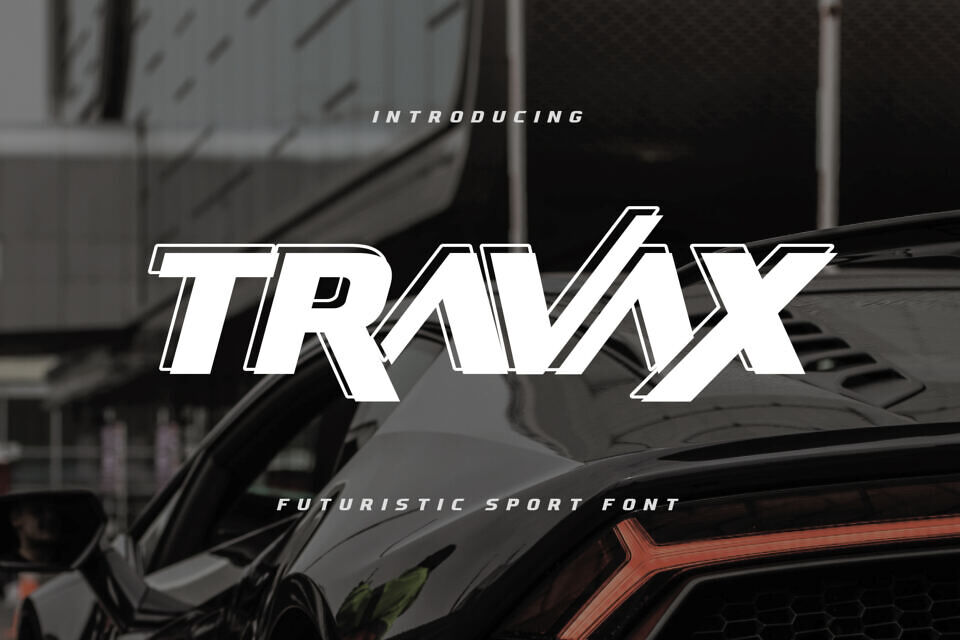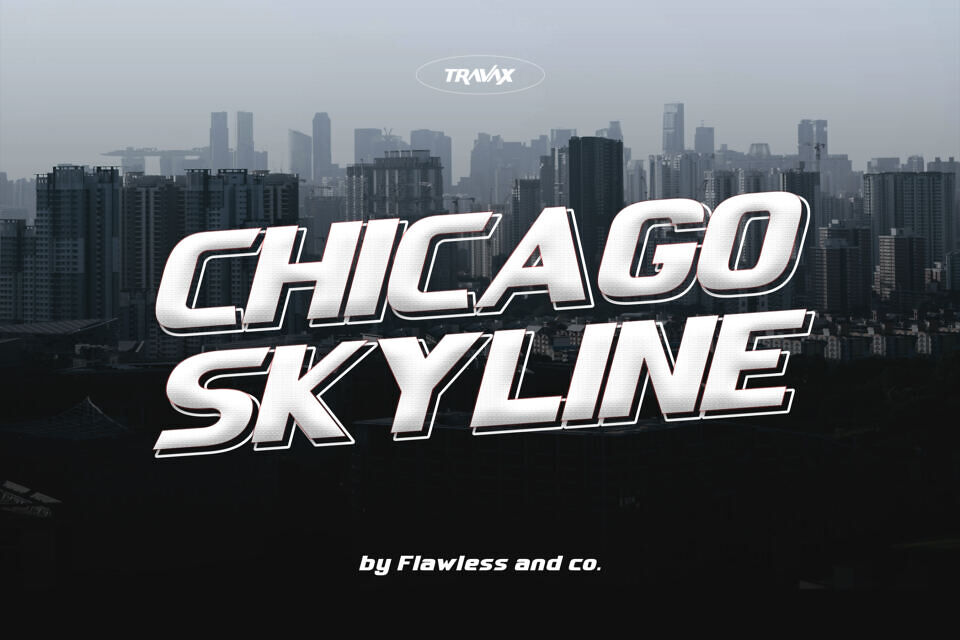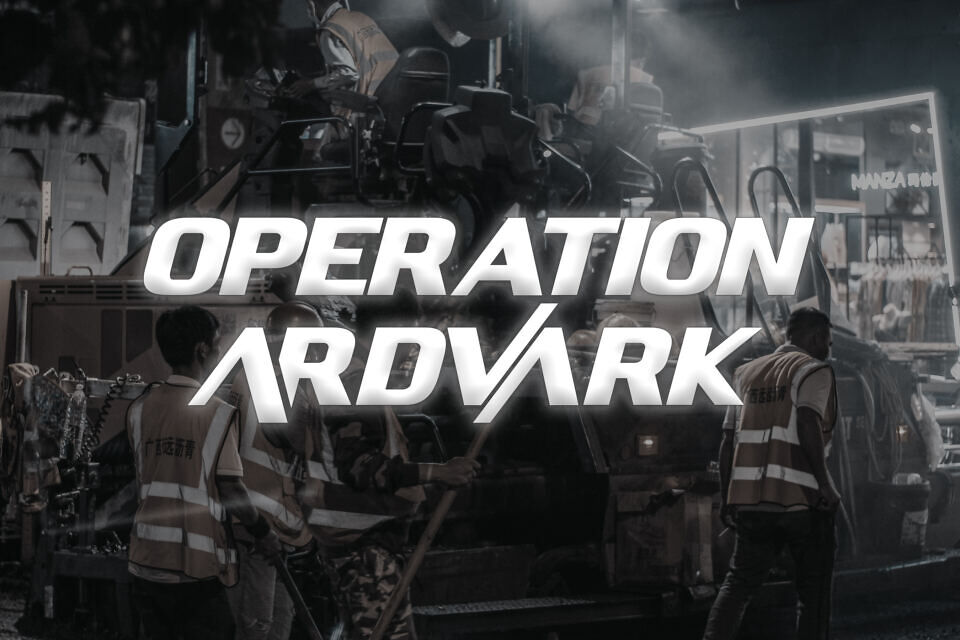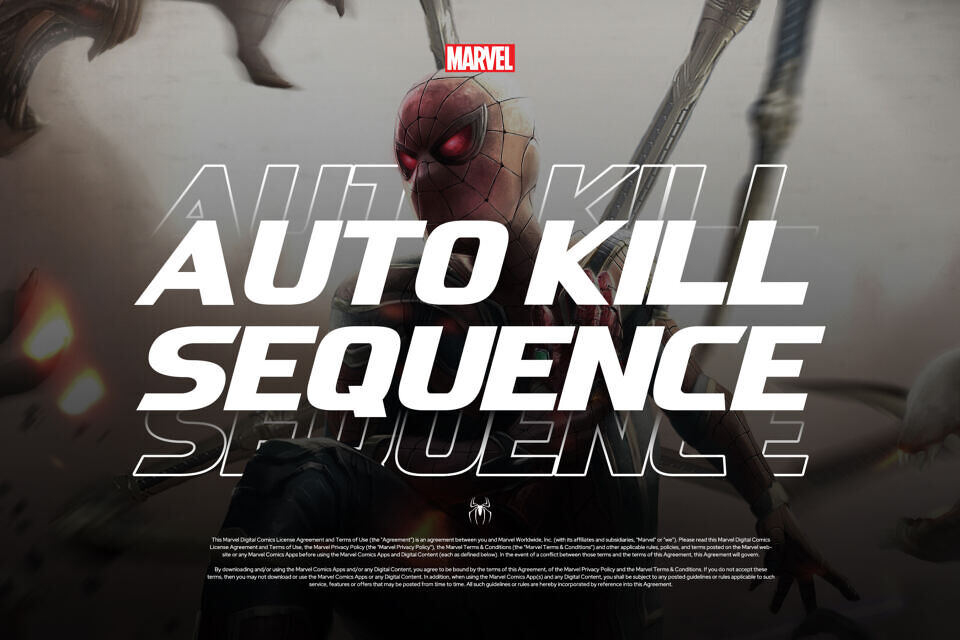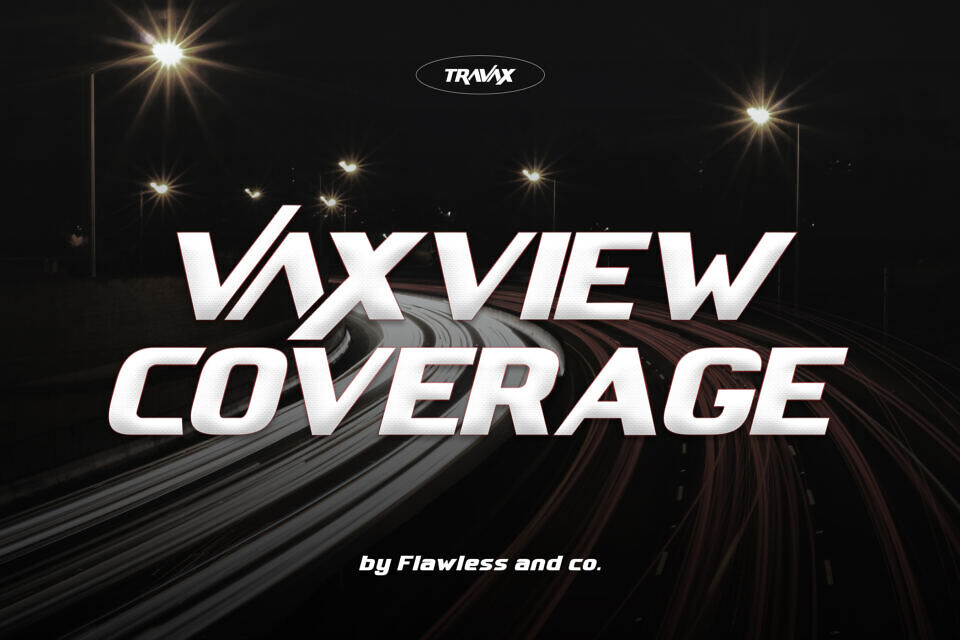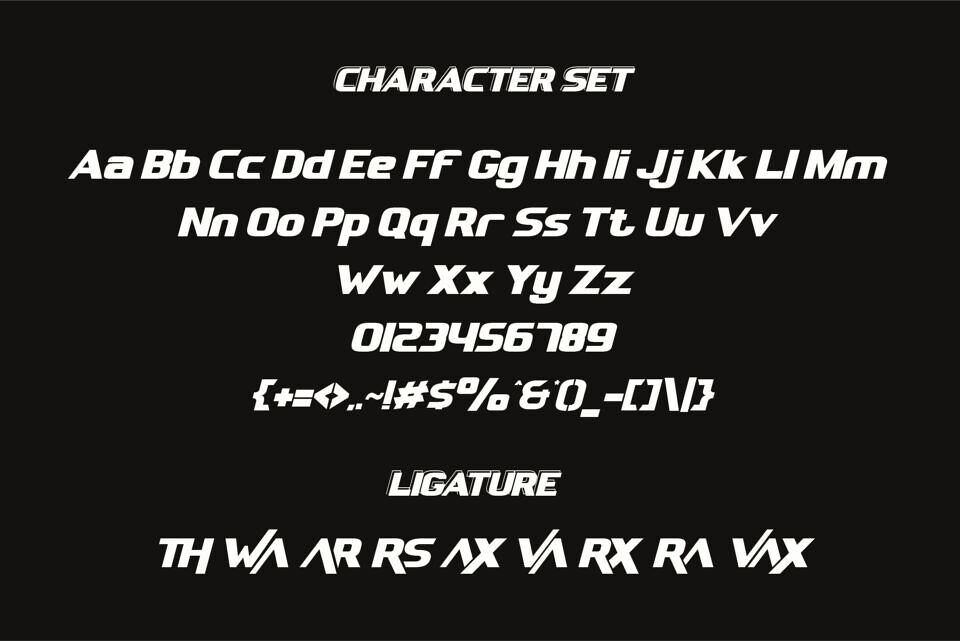
Travax Font
Introducing “Travax”, a Futuristic Sport Font. Elevate your designs to new dimensions with “Travax,” a bold and futuristic sport font that embodies the spirit of progress and competition.
There’s some connected letters and some alternates that suitable for any graphic designs such as branding materials, t-shirt, print, business cards, logo, poster, t-shirt, photography, quotes, etc.